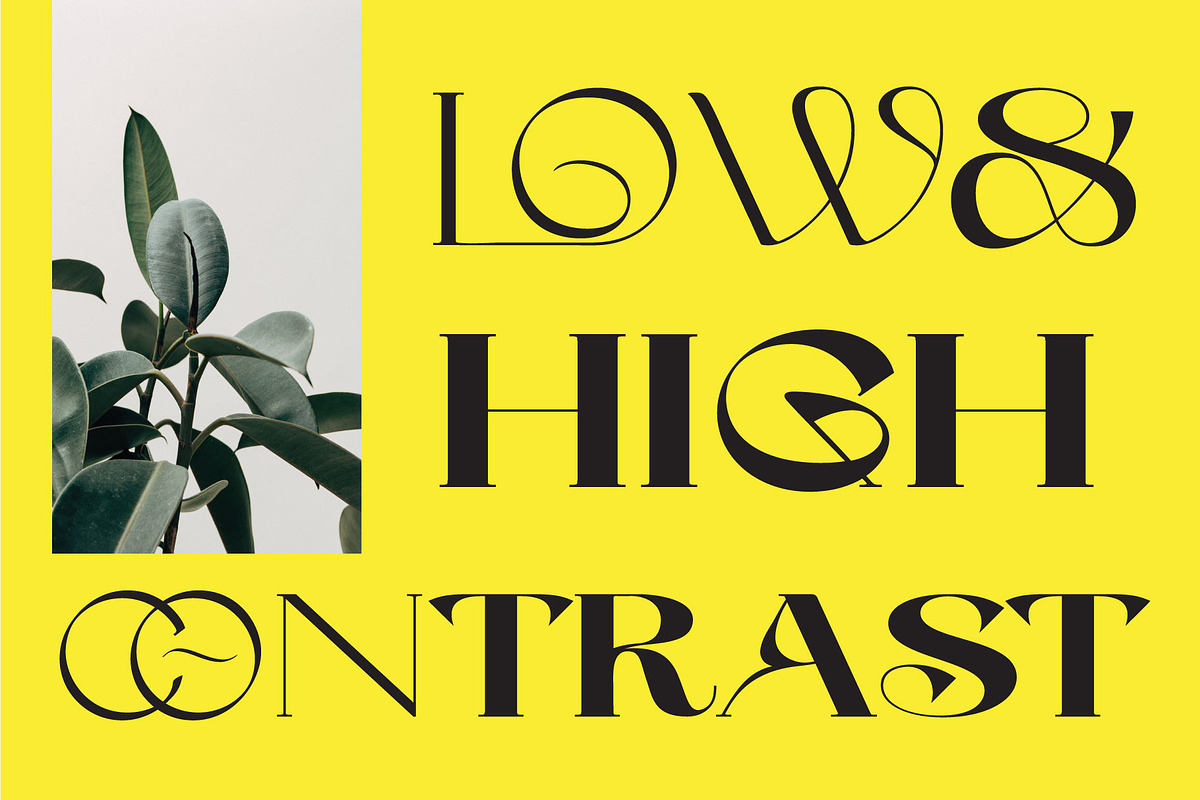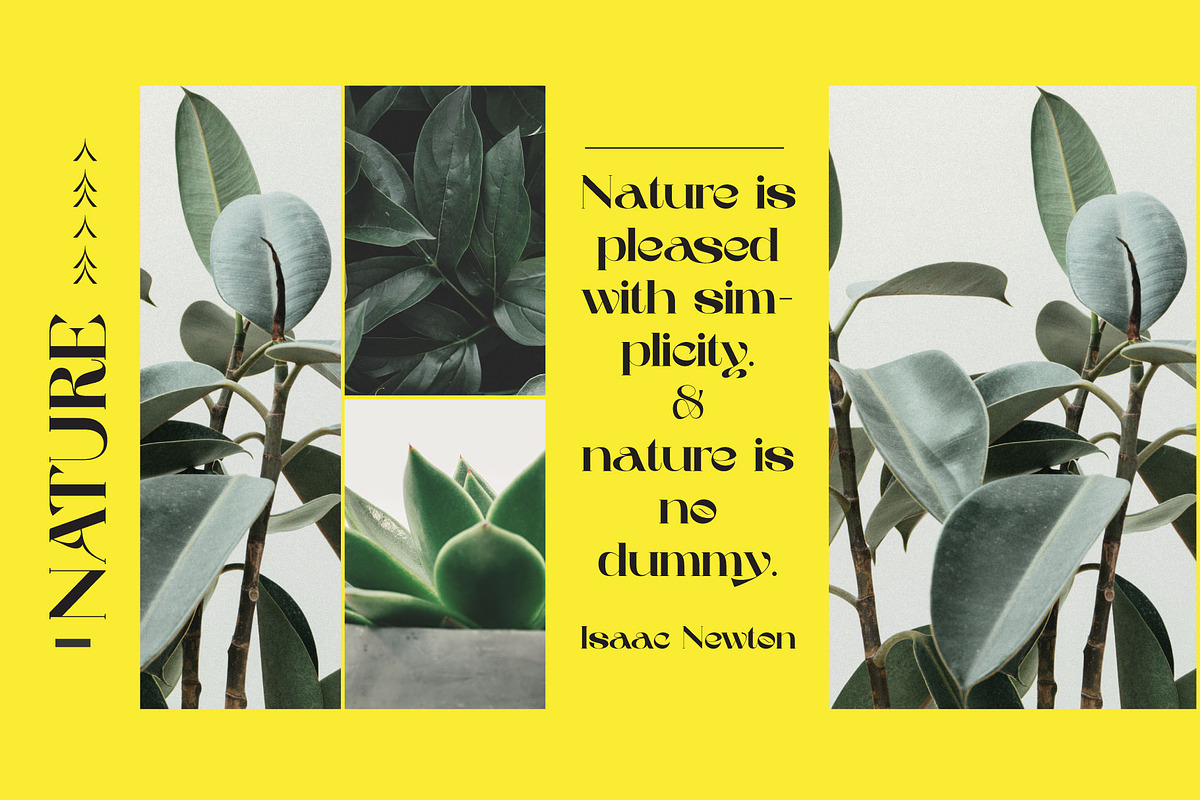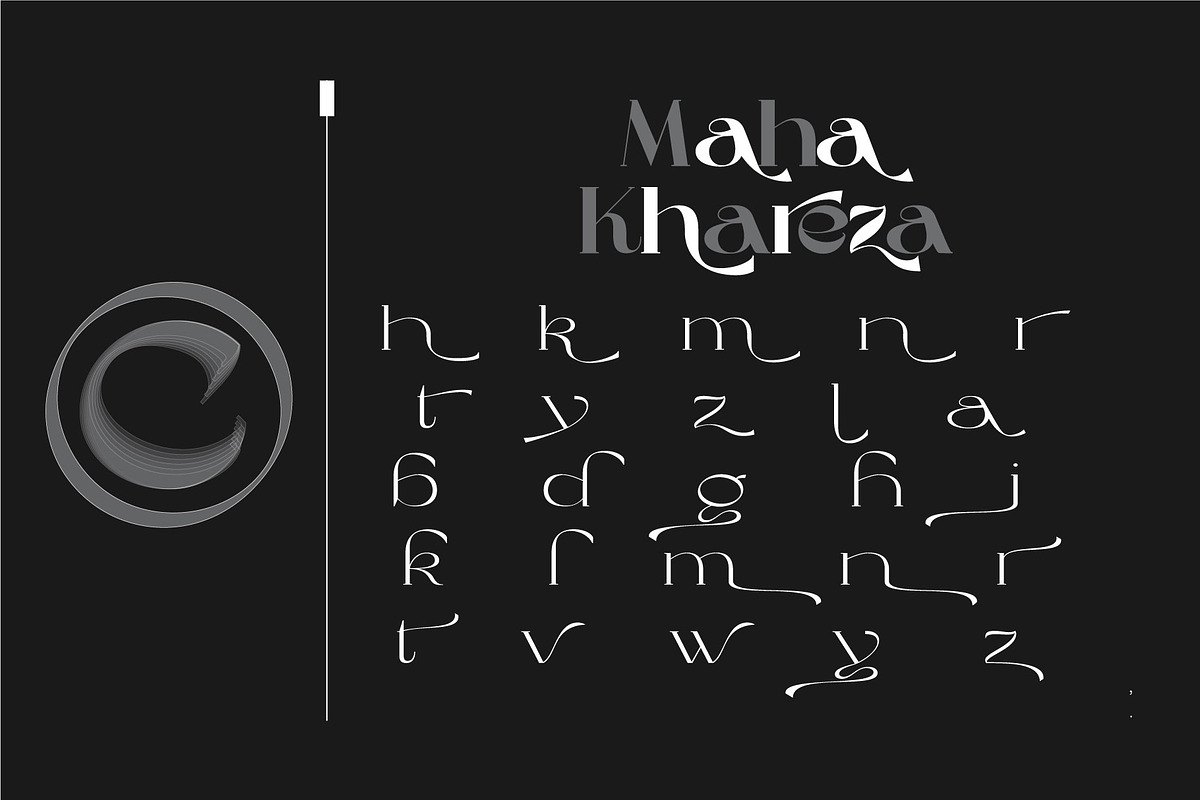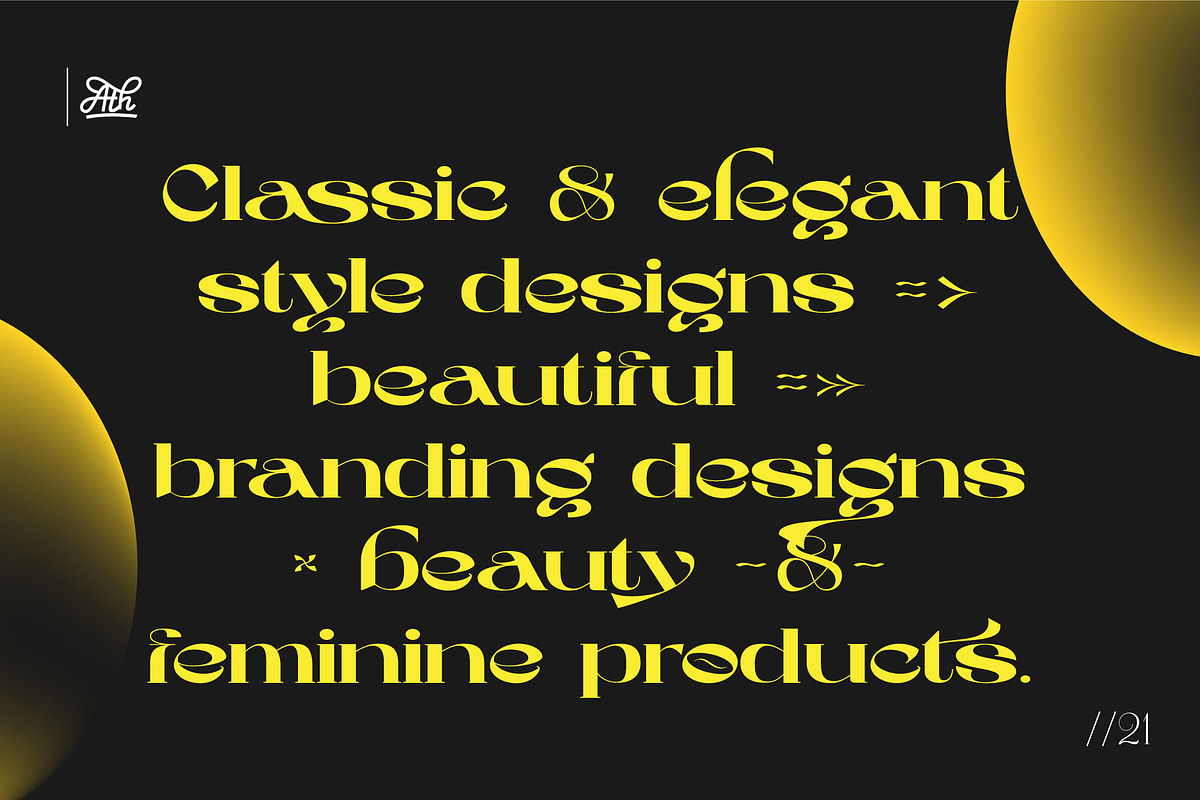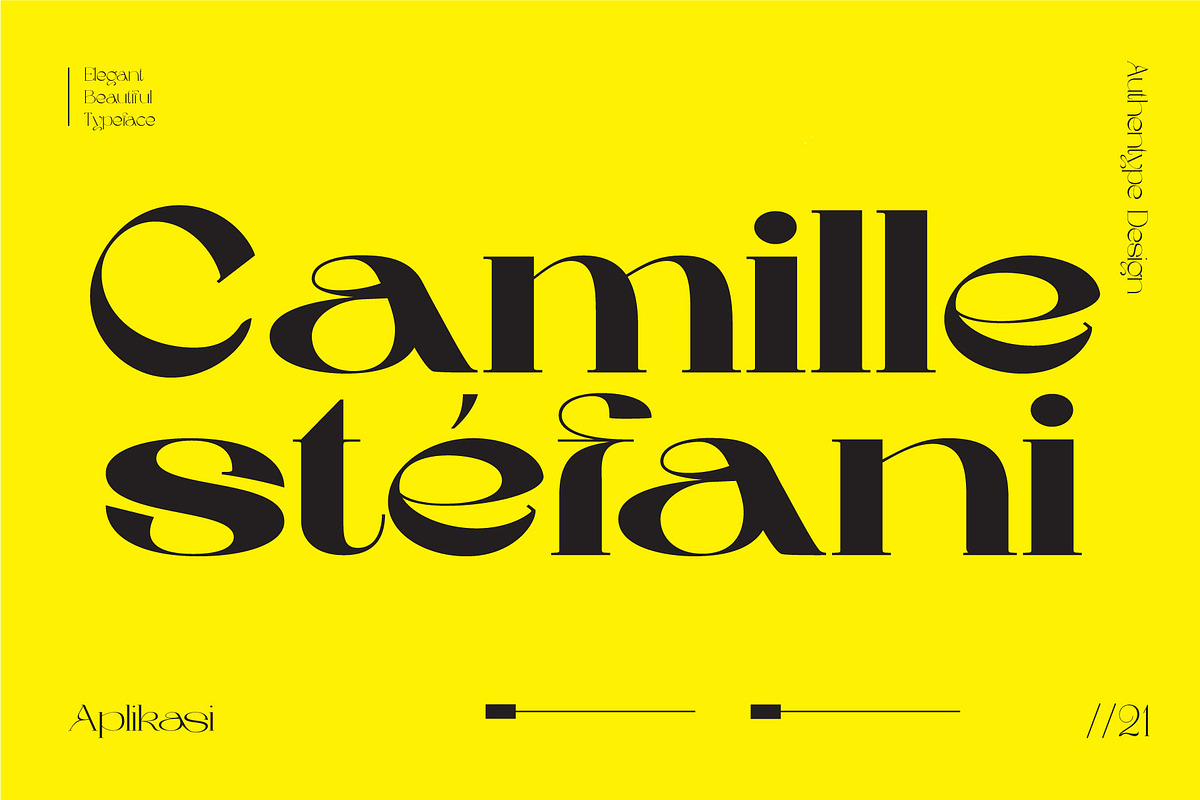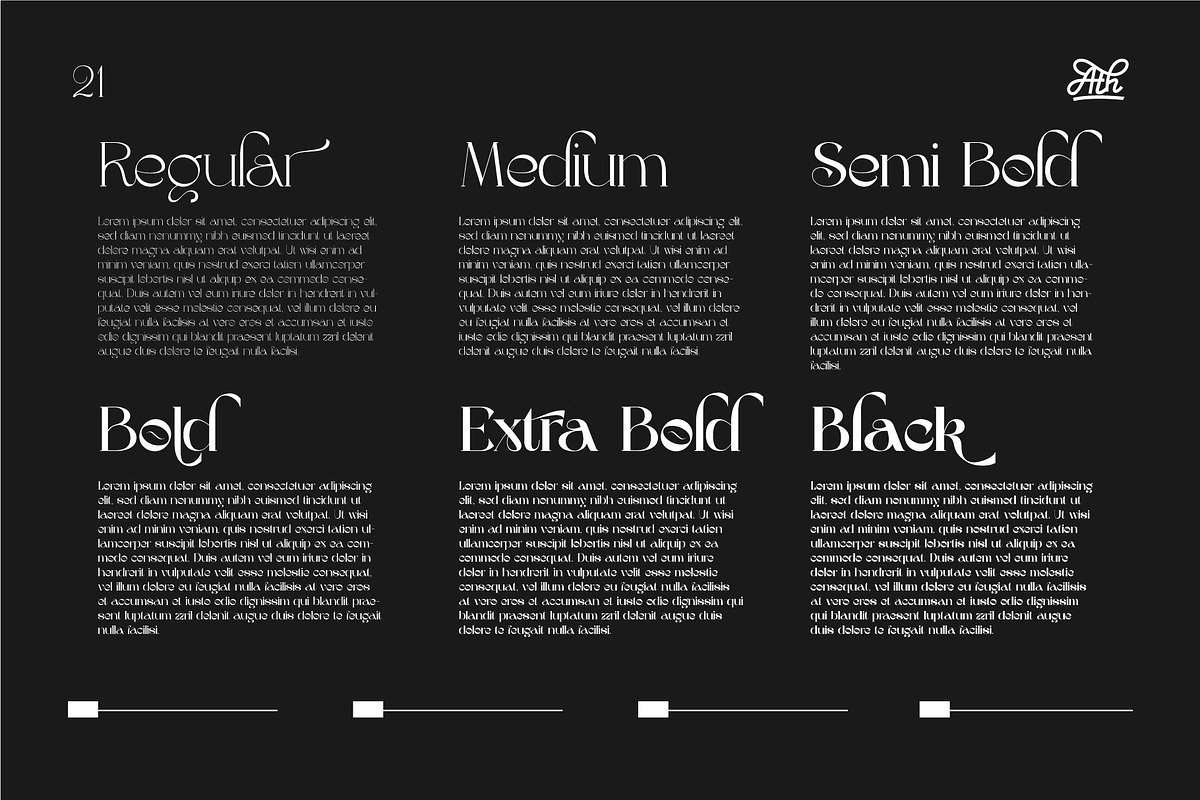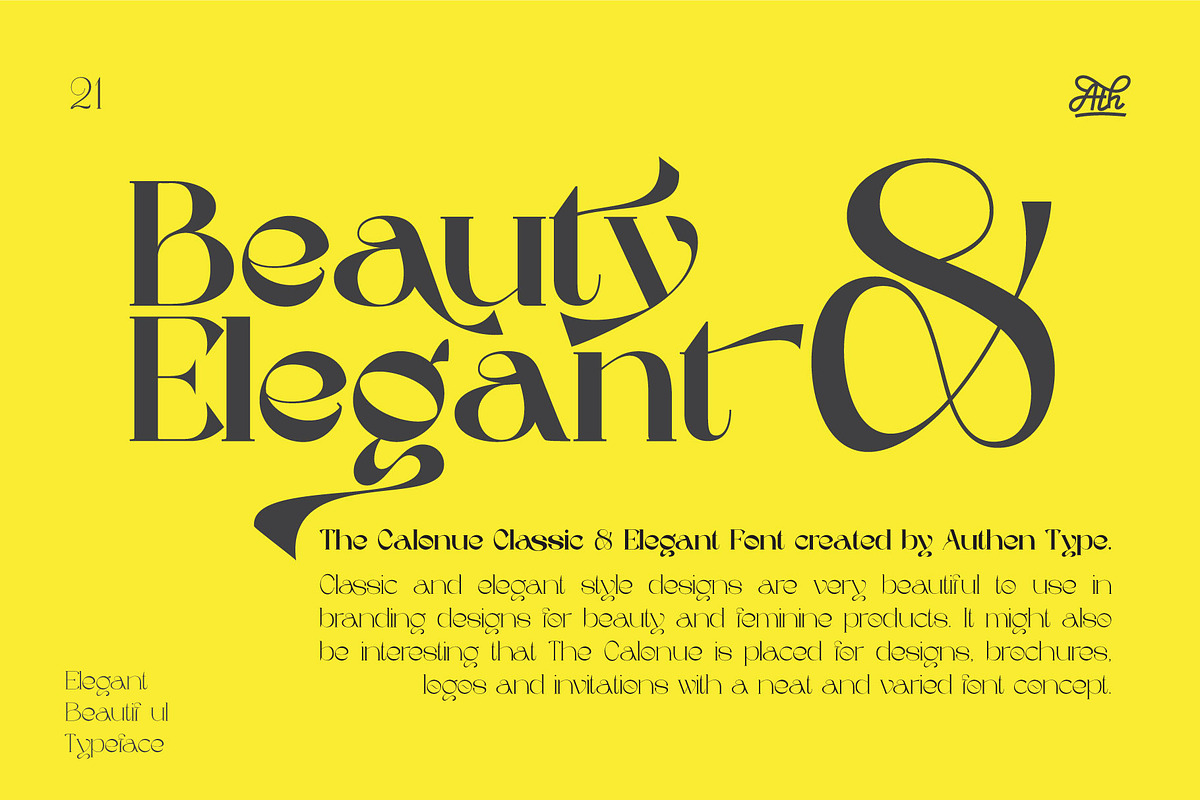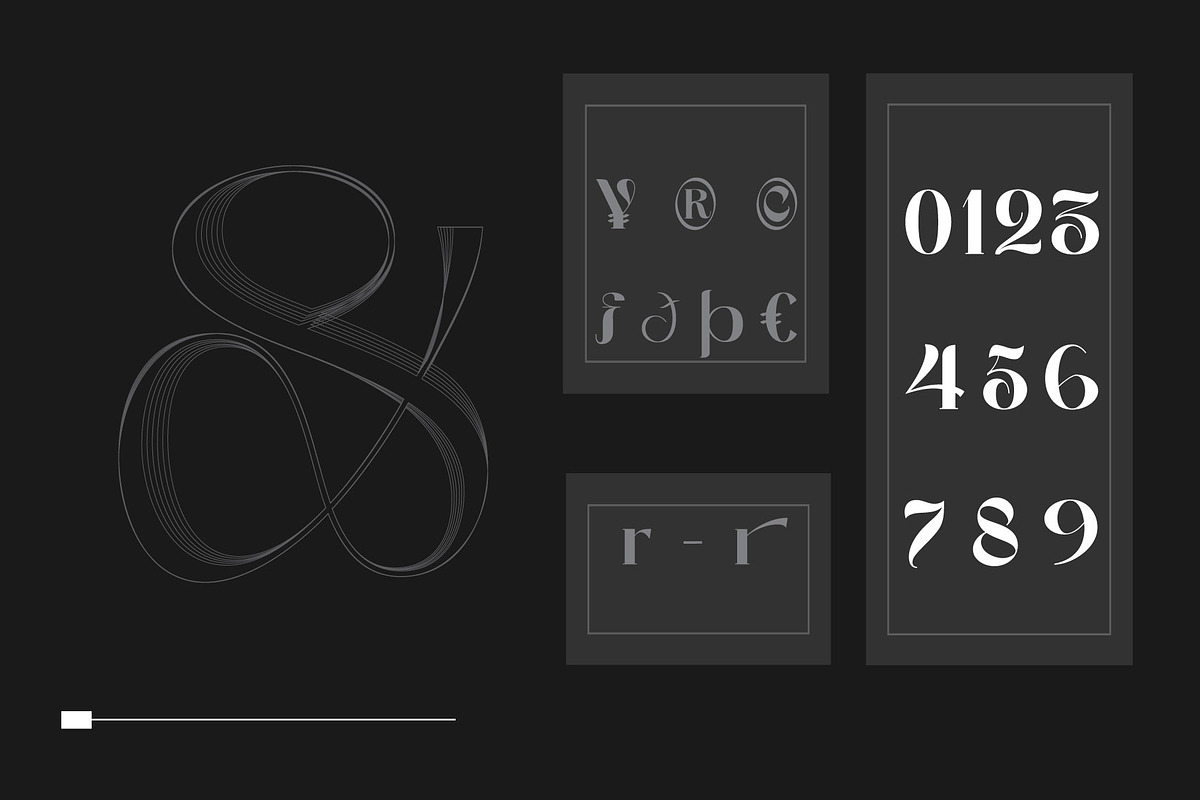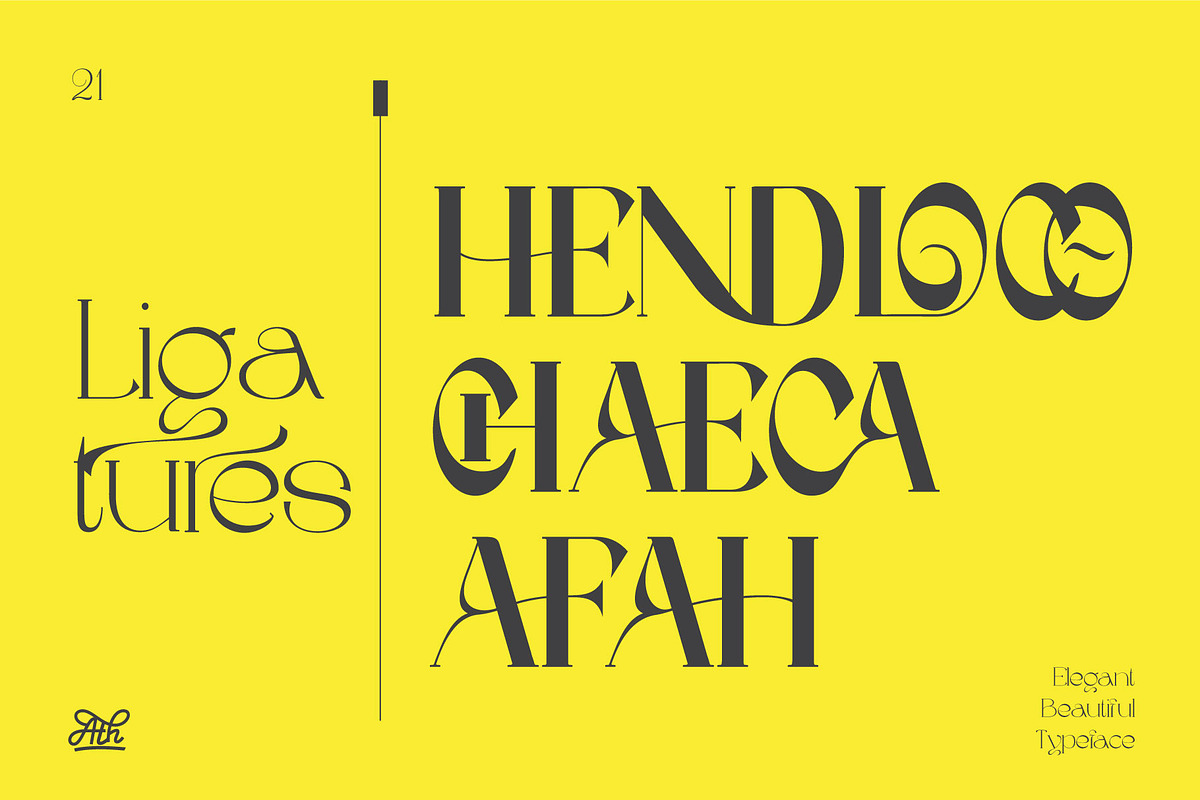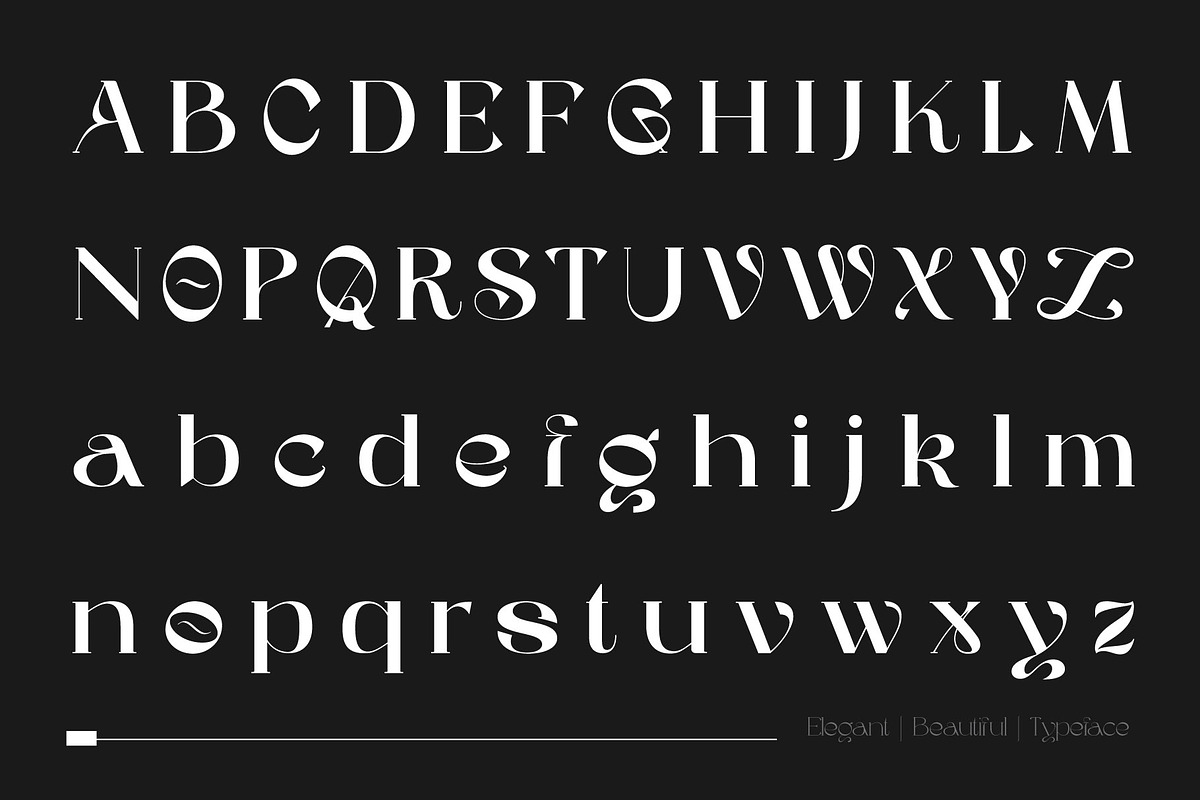
Wave Vero - Elegant Typeface
Wave Vero - Elegant & Beautiful Typeface created by Authen Type. Elegant & beautiful style designs are very beautiful to use in branding designs for beauty and feminine products. It might also be interesting that Wave Vero is placed for designs, brochures, logos, and invitations with a neat and varied font concept.
Wave Vero (OTF/TTF/WOF/WOF2), Standard glyphs uppercase and lowercase letters Numerals, a large range of punctuation and ligatures, lowercase letters include ending swashes, works on PC & Mac, simple installations, accessible in the Adobe Illustrator, Adobe Photoshop, Adobe InDesign, even work on Microsoft Word,